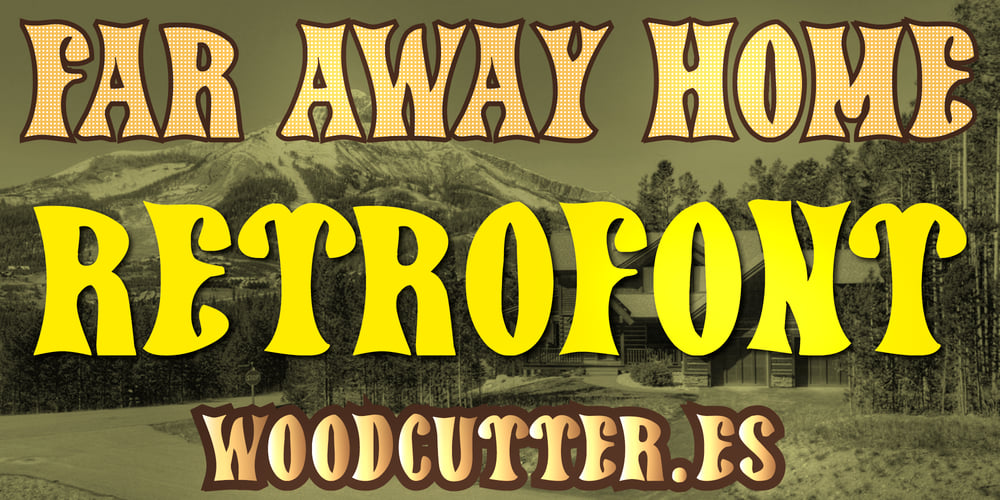
Far Away Home Font Family was designed by Jordi Manero and published by Woodcutter. Far Away Home contains 1 styles and family package options. “Far Away Home” is an uppercase typeface that evokes a vintage style with retro, curved lines. Its letters feature a nostalgic design that transports you to past eras, combining elegance with a classic touch in every stroke. Ideal for projects seeking a retro feel, such as posters, covers, and logos, this font captures the essence of the old with a modern twist. Its curved and delicate style brings a sense of familiarity and warmth, making it perfect for standing out in any design that requires a typeface with character and personality.